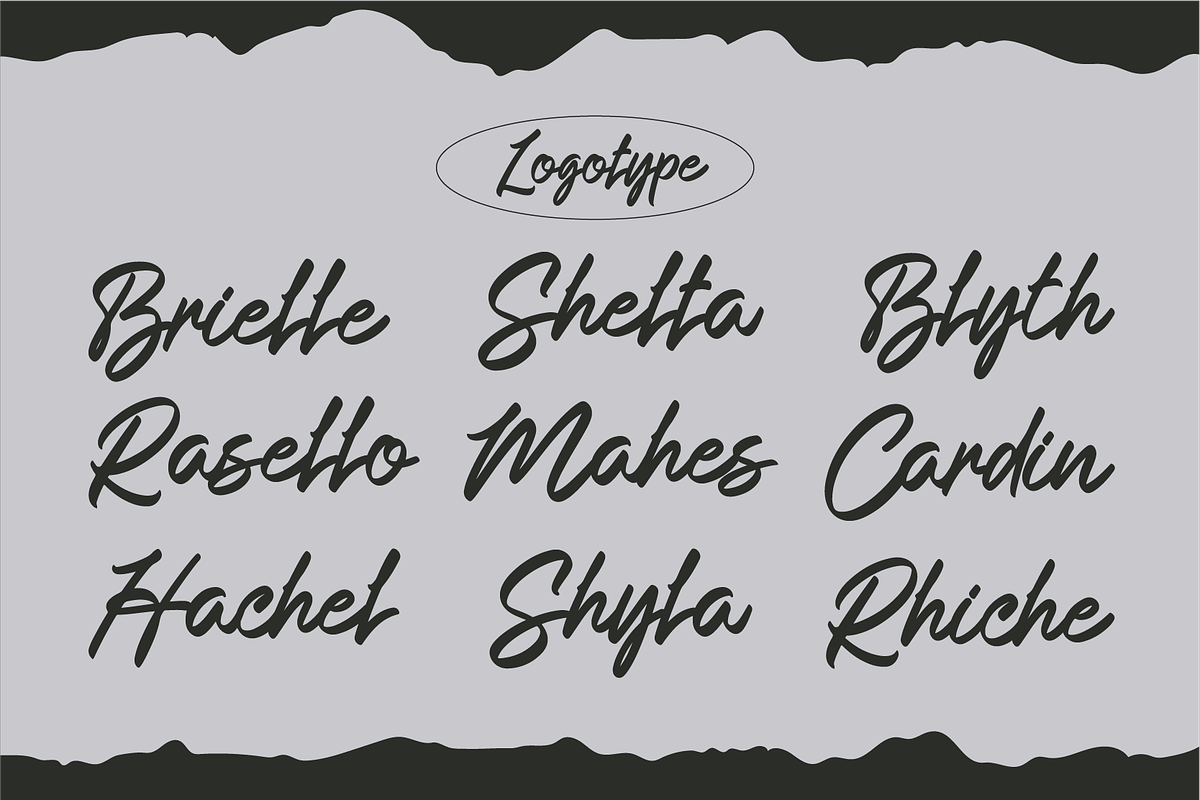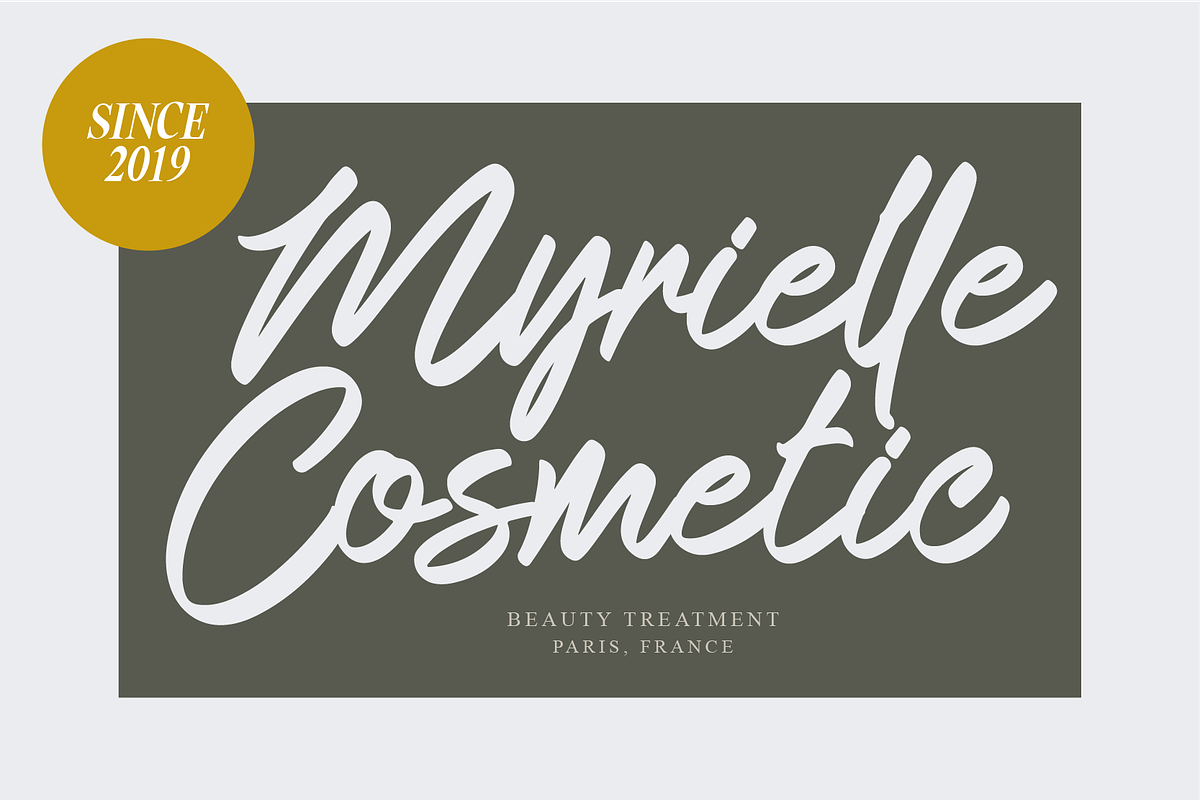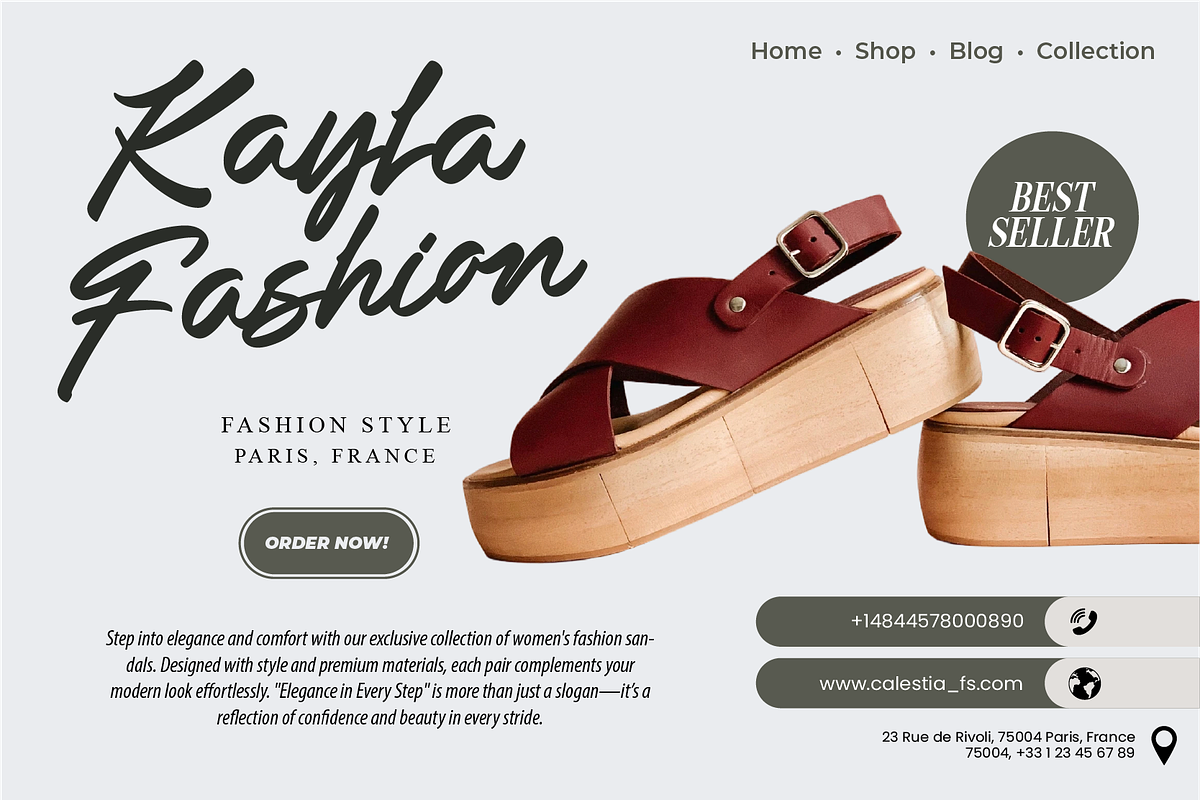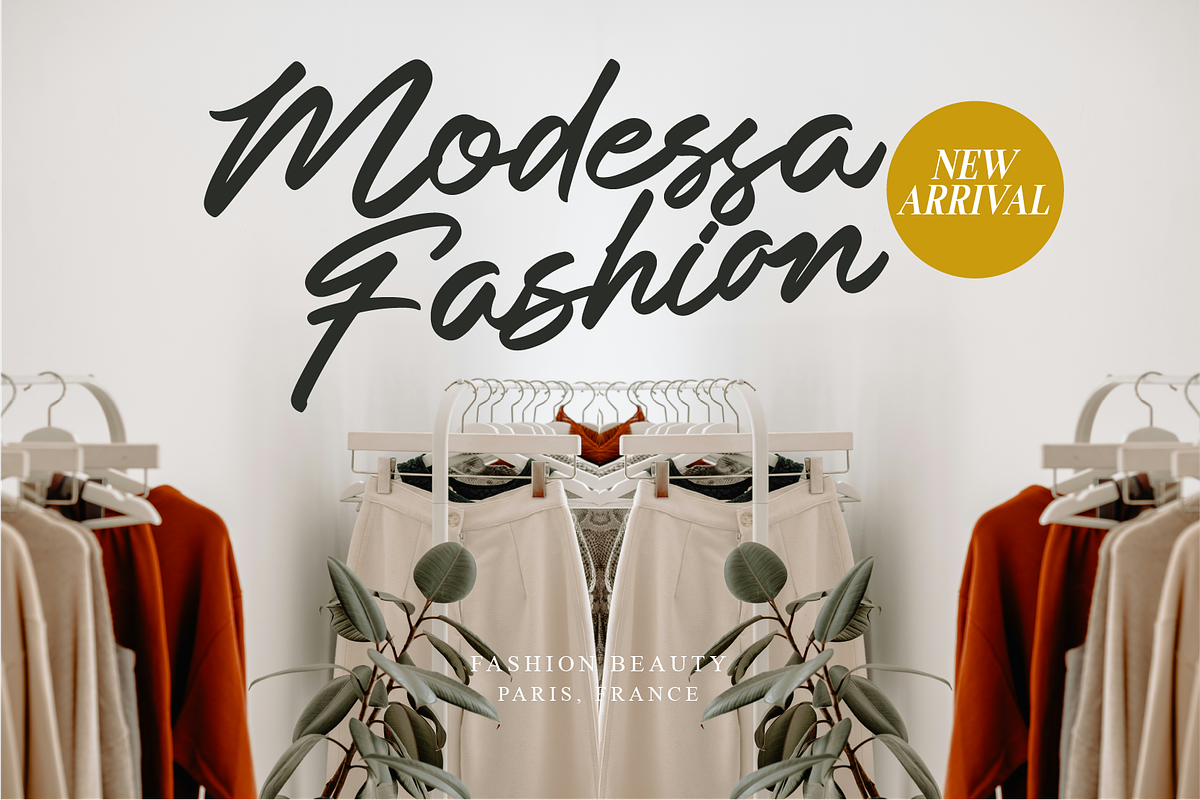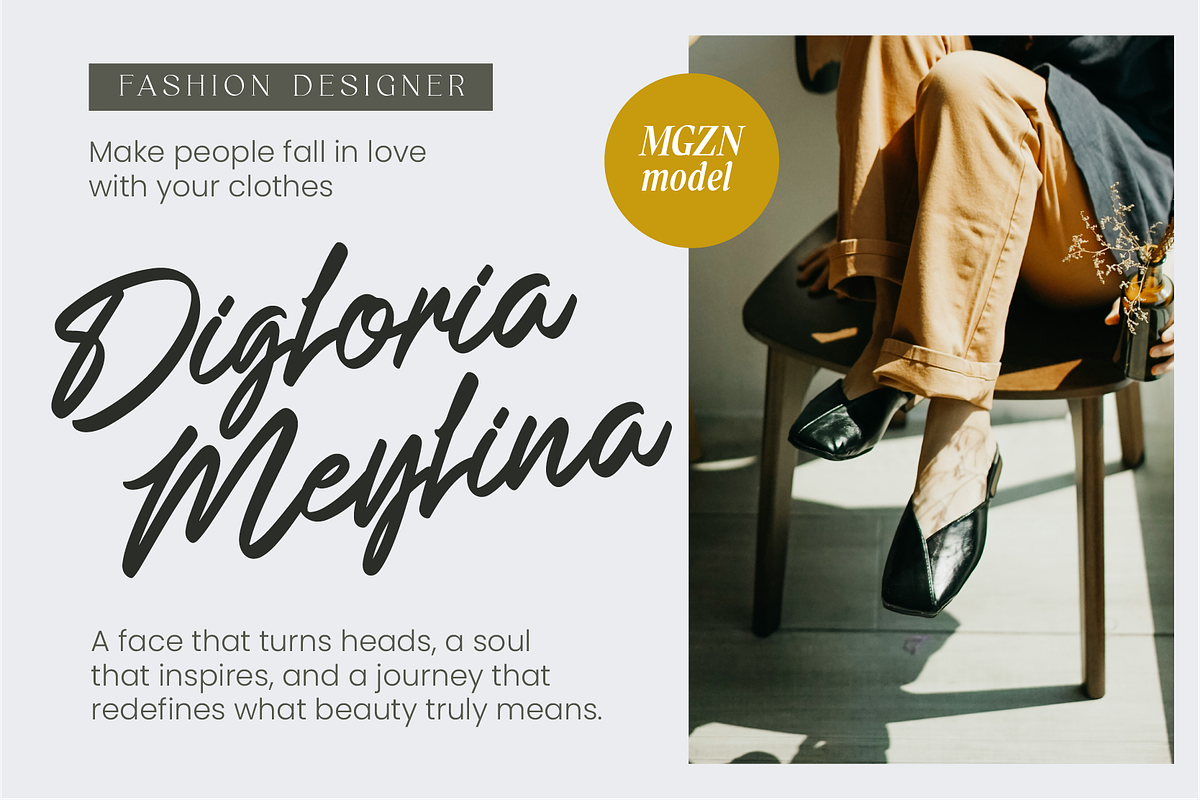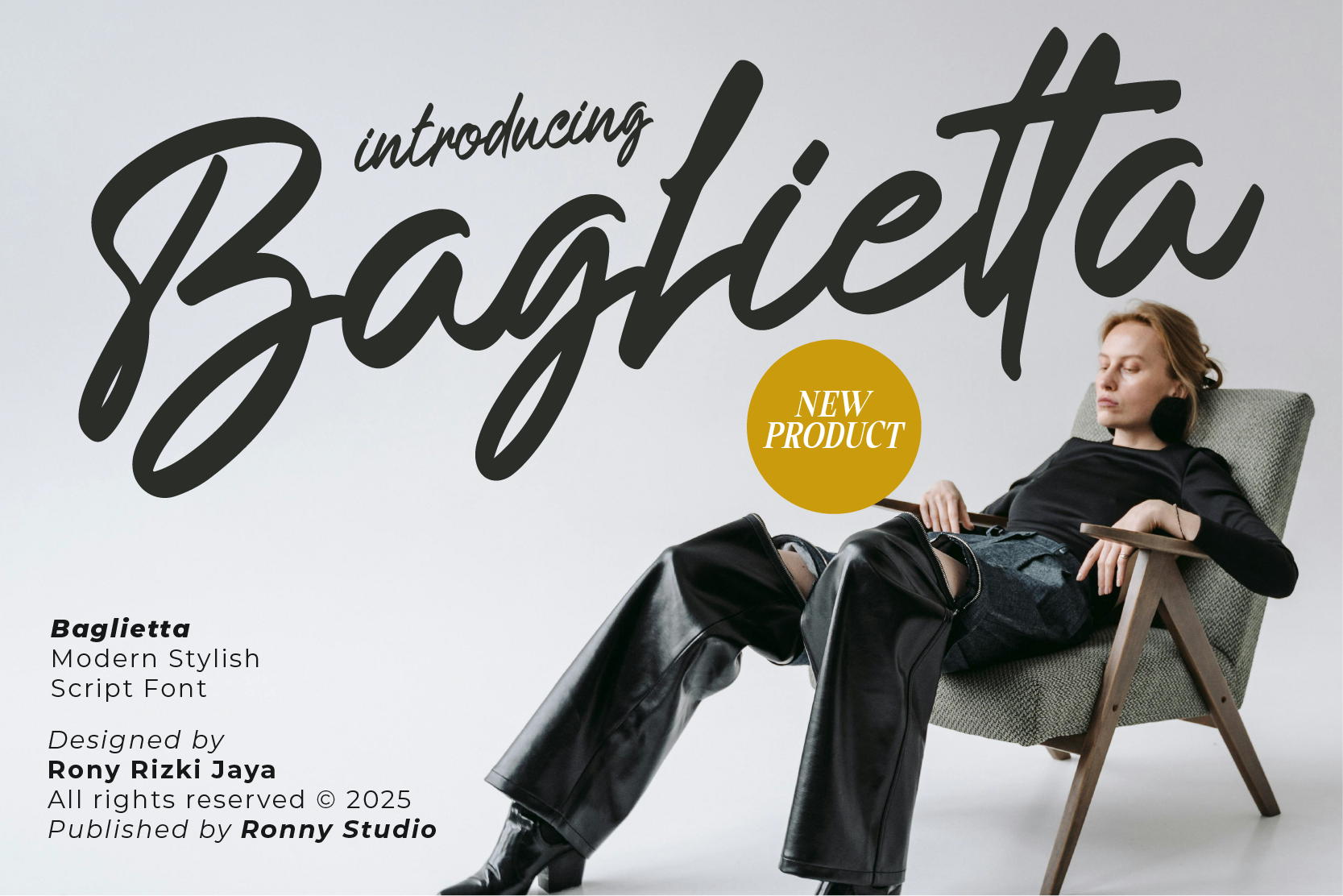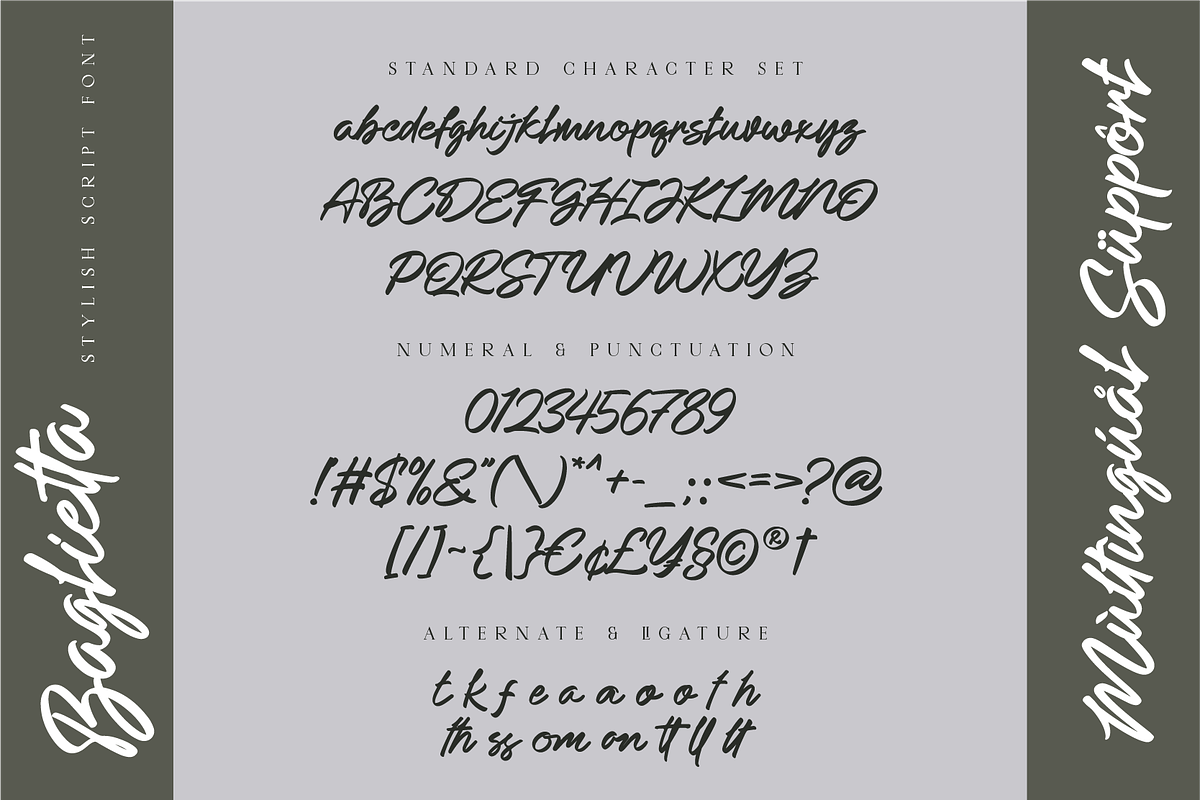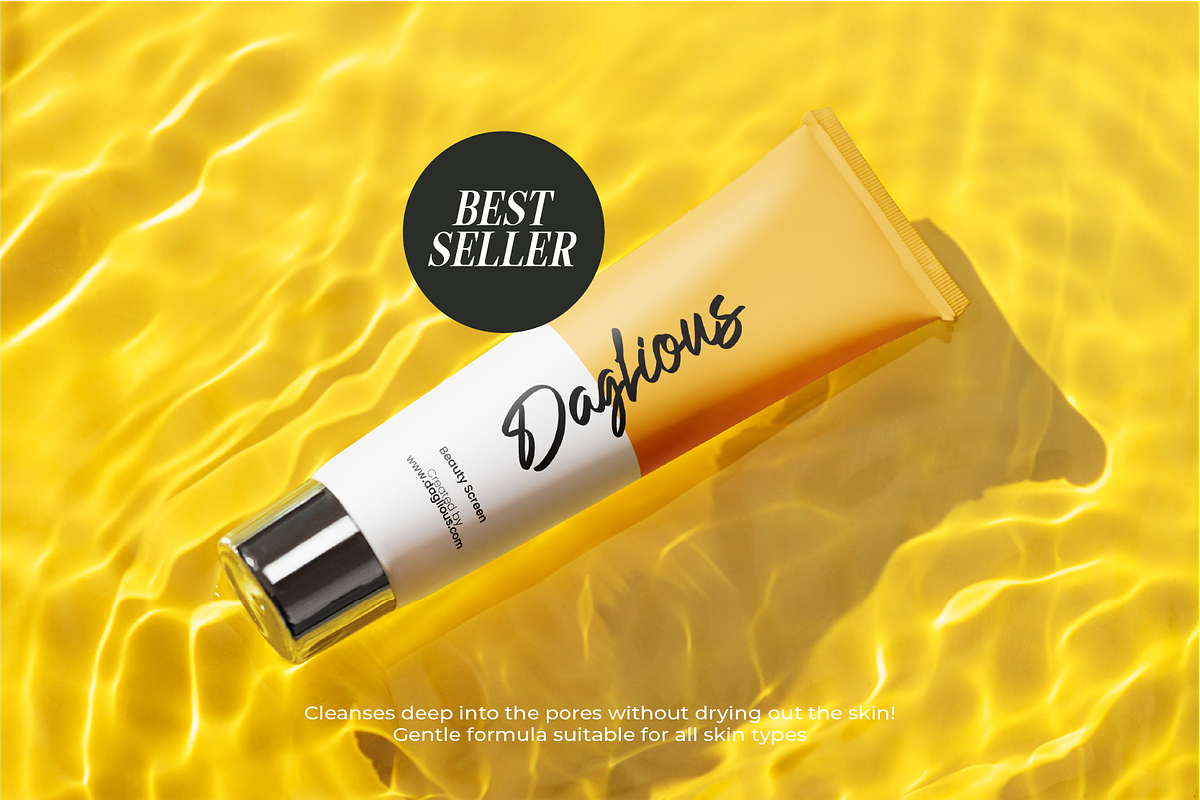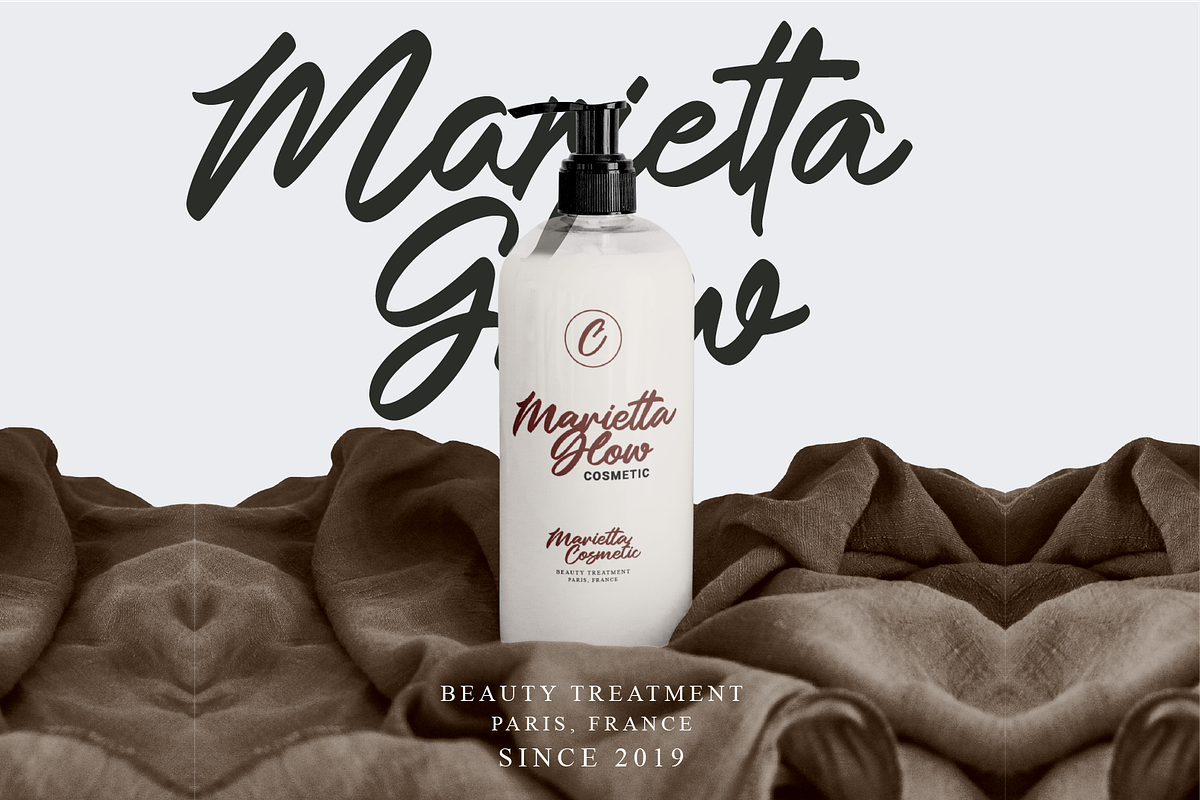
Baglietta Modern Stylish Script Font
Introducing Baglietta, a modern and stylish script font with smooth curves and elegant flow. Designed to bring a sophisticated and contemporary feel, Baglietta is perfect for branding, fashion logos, wedding invitations, social media content, and more. Its natural handwritten style blends beauty and readability, making it an excellent choice for both display and body text in creative projects.
- Modern Script Style – Elegant, flowing handwritten script with a refined and trendy feel.
- Complete Character Set – Includes uppercase, lowercase, numbers, punctuation, and multilingual support.
- PUA Encoded – Full access to all special characters and stylistic alternates without design software.
- Versatile Applications – Ideal for branding, invitations, packaging, headers, and more.
- Stylish logo and fashion branding
- Elegant wedding invitations and stationery
- Social media posts, Instagram quotes, and blog headers
- Product packaging and boutique labels
- Digital artwork and modern editorial layouts
- Any design project needing a chic, handwritten touch
Add elegance and trendiness to your design projects with Baglietta.